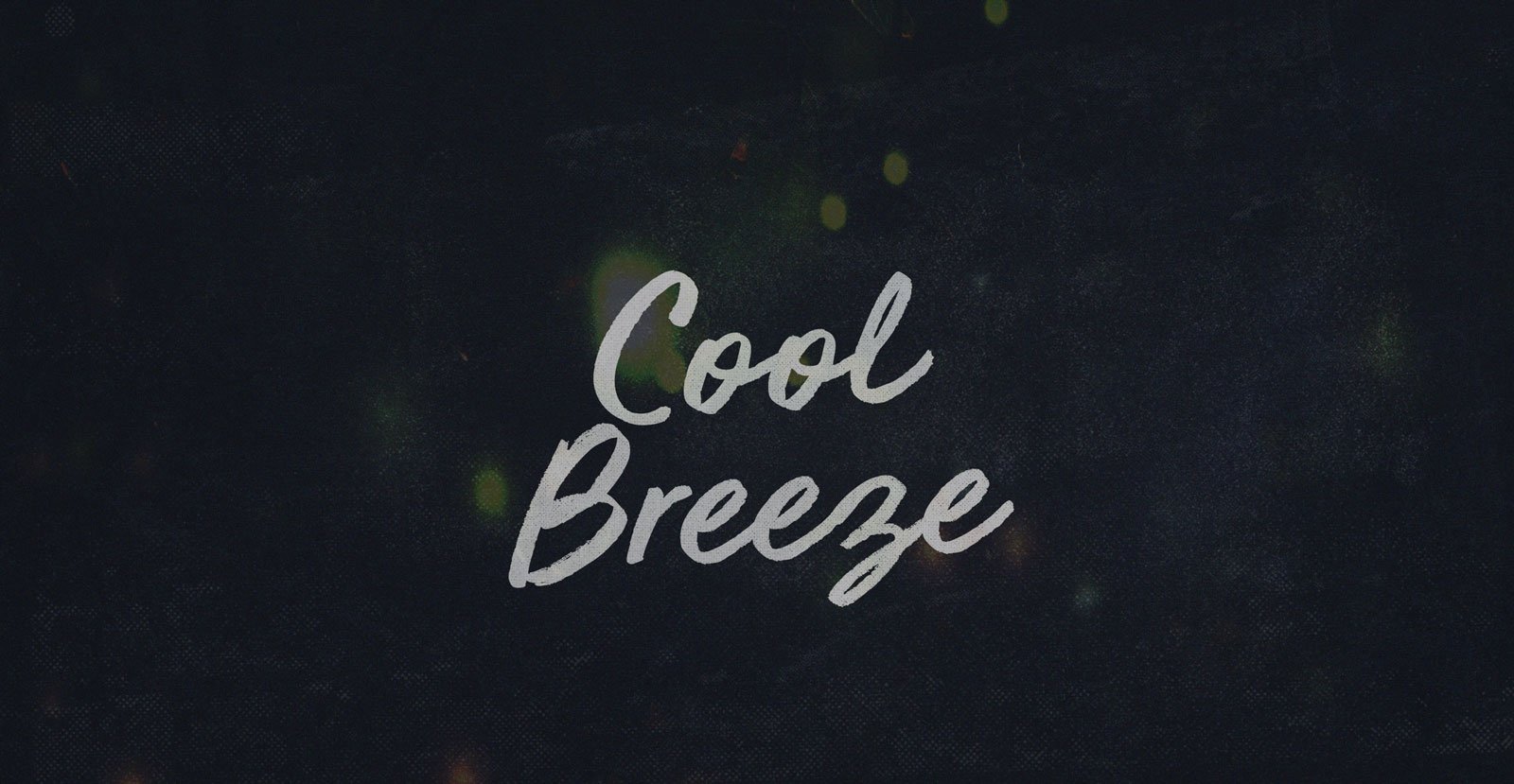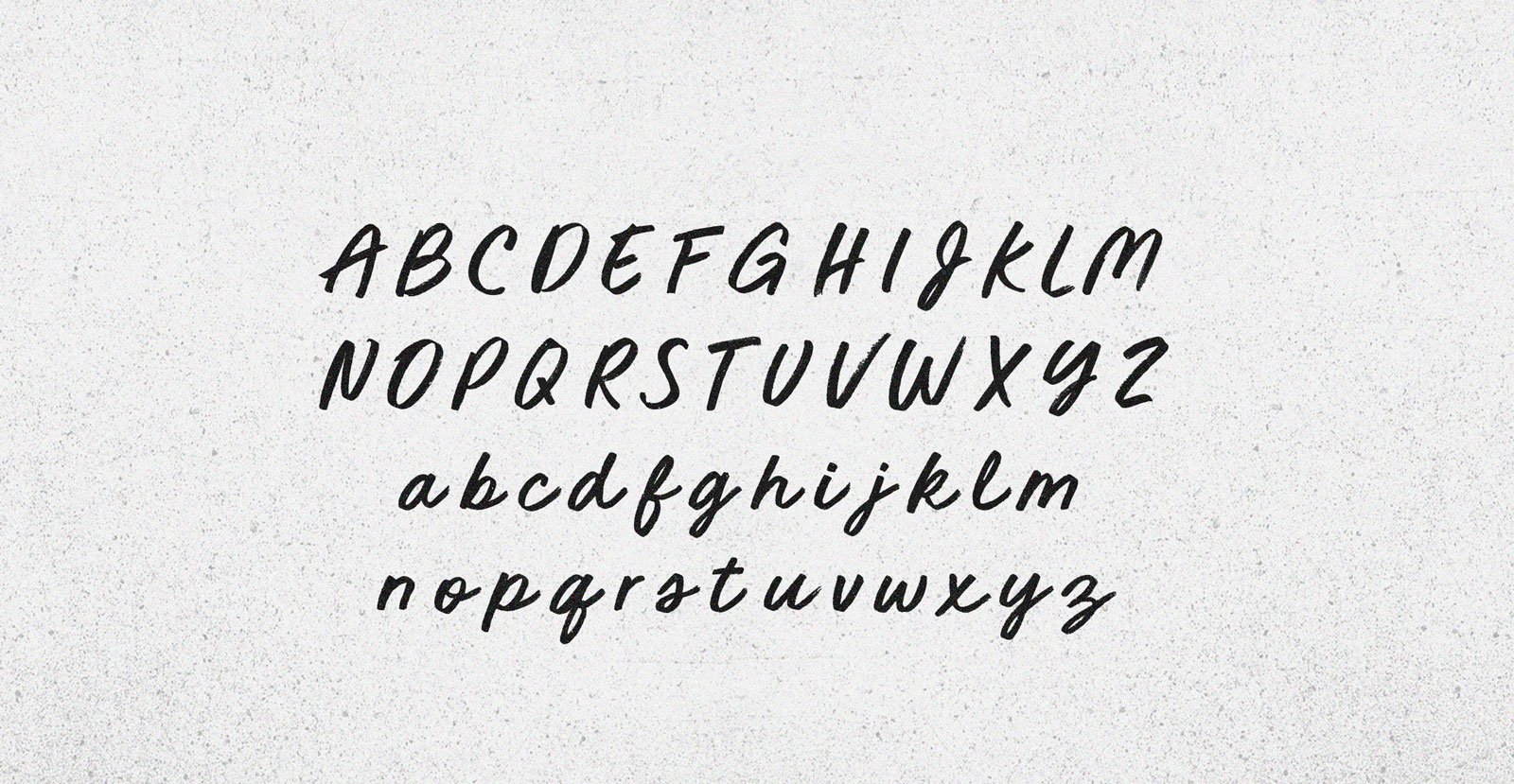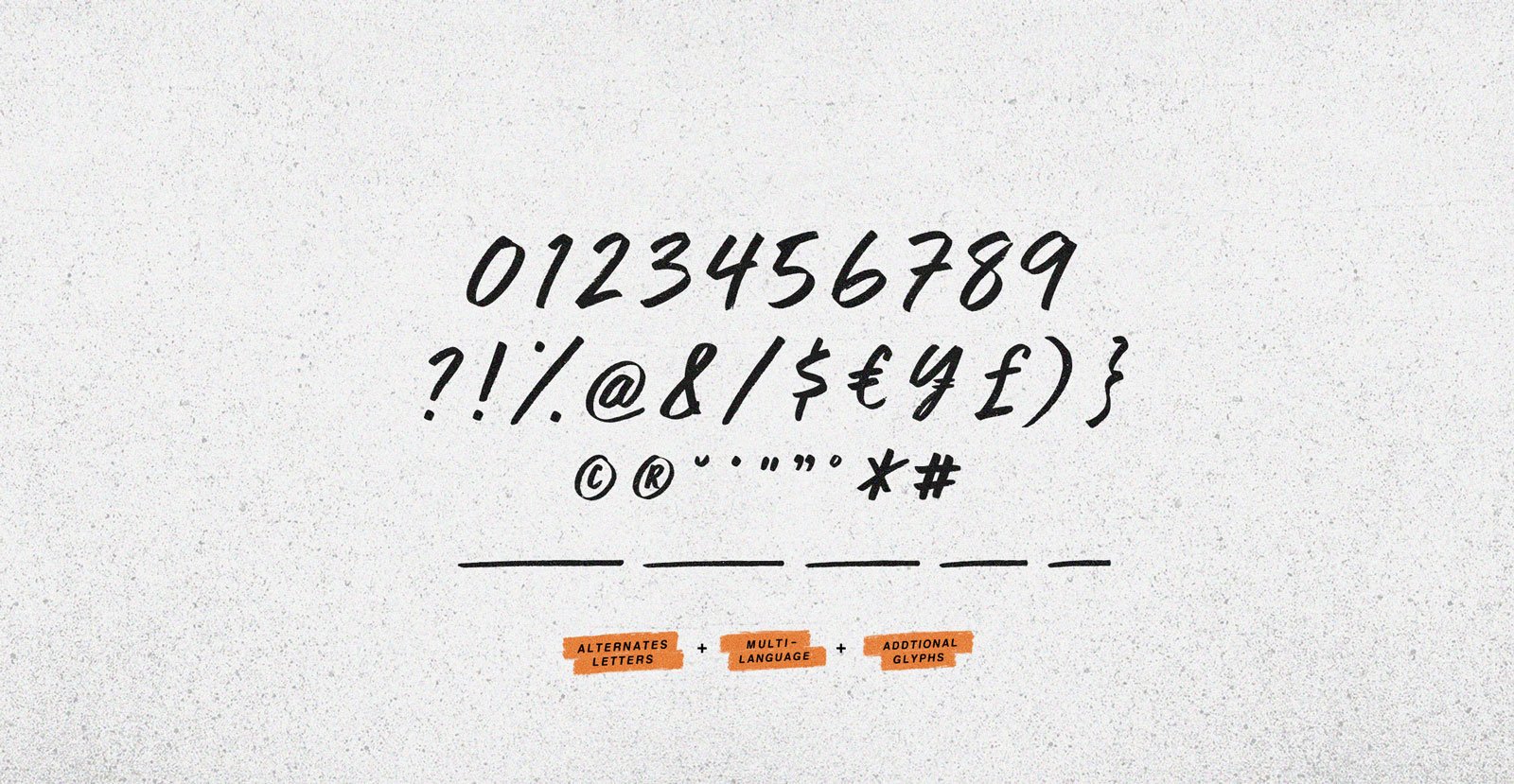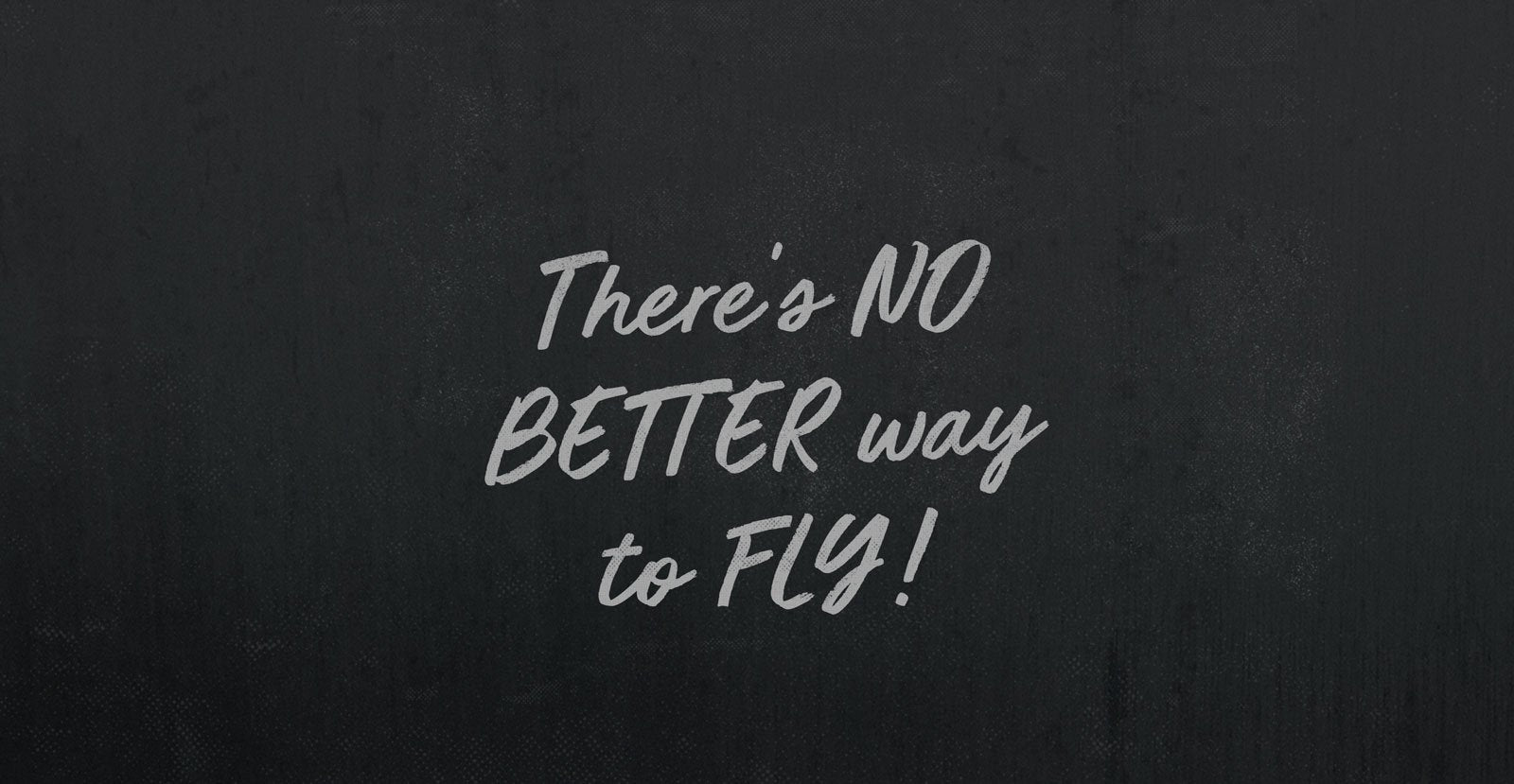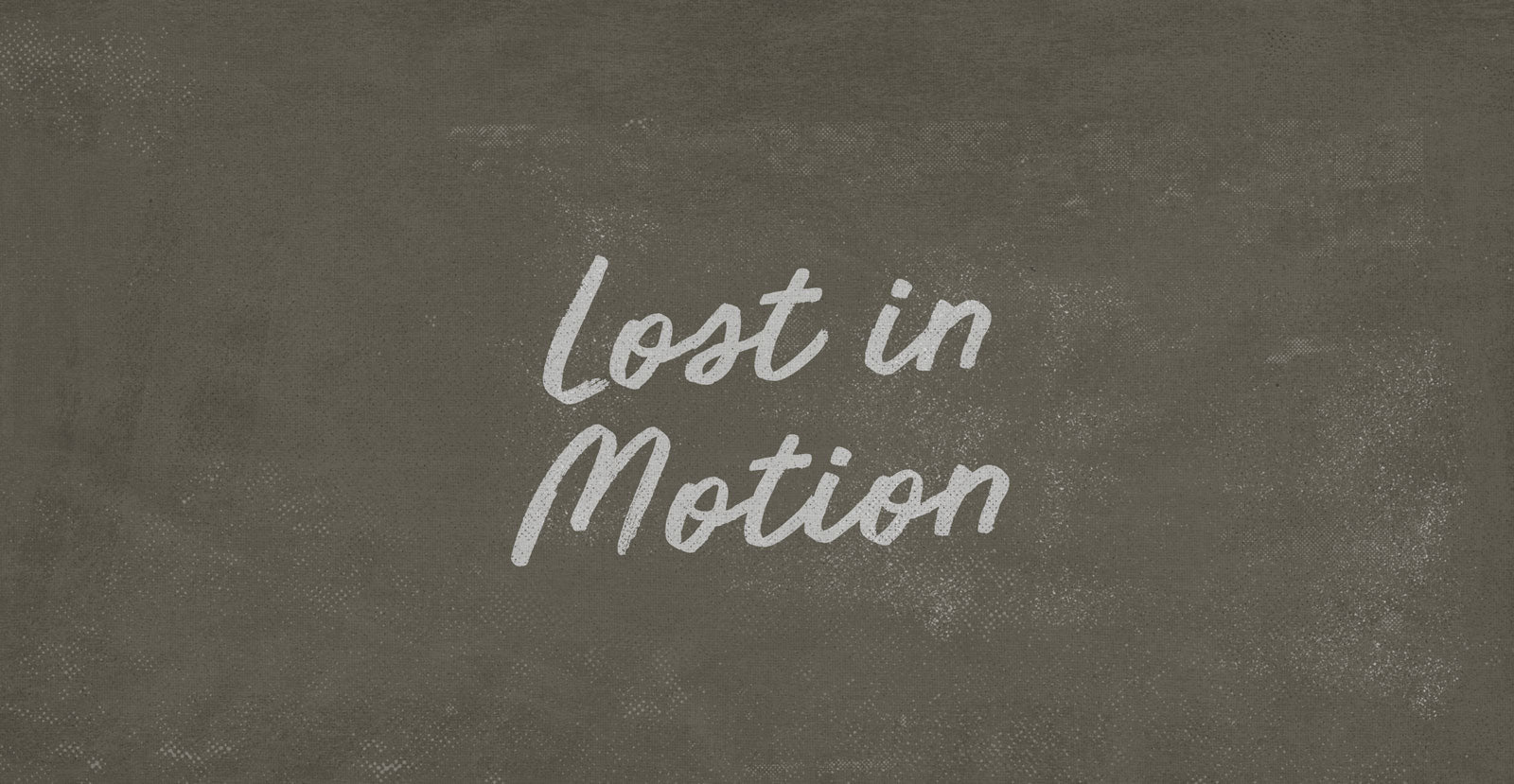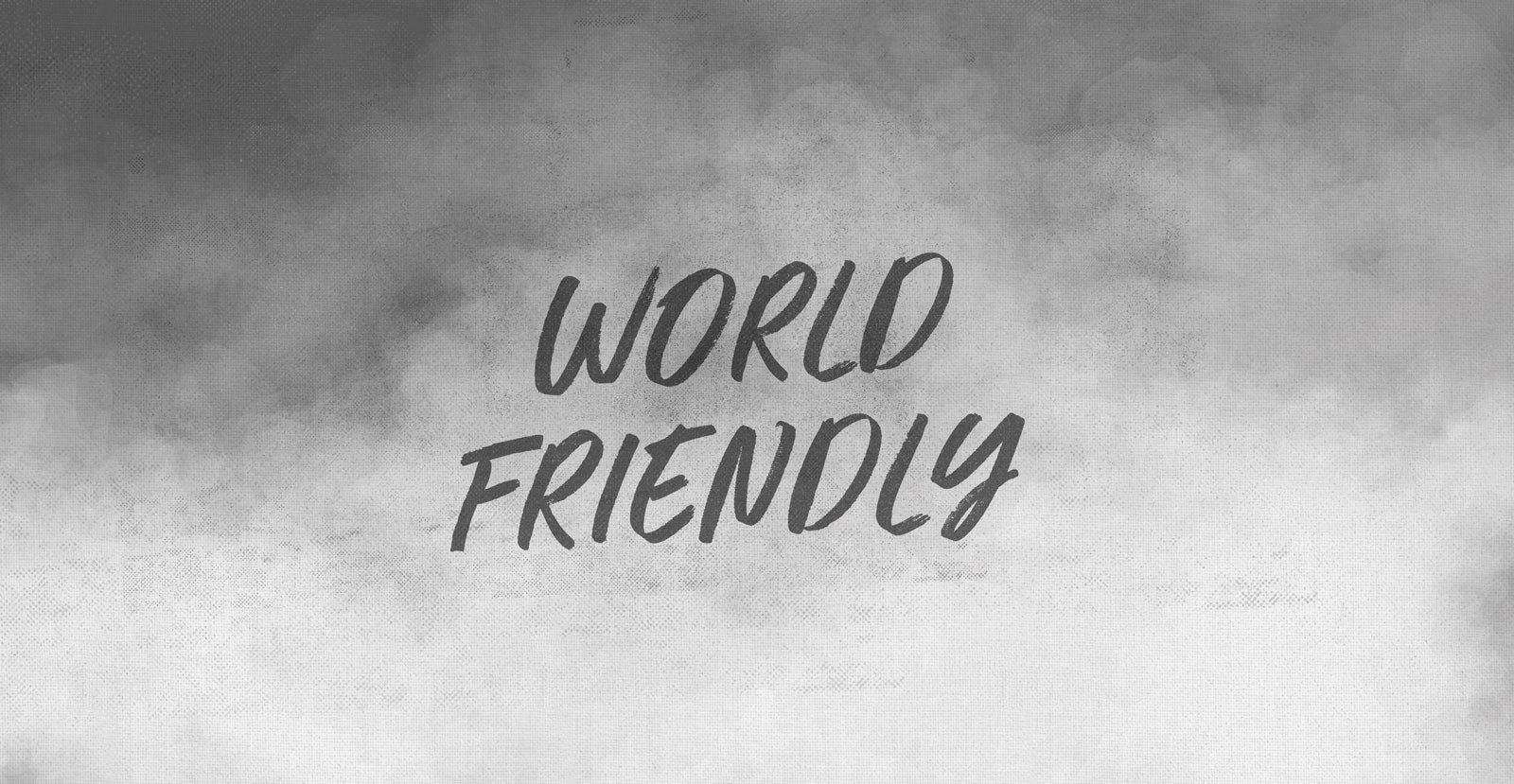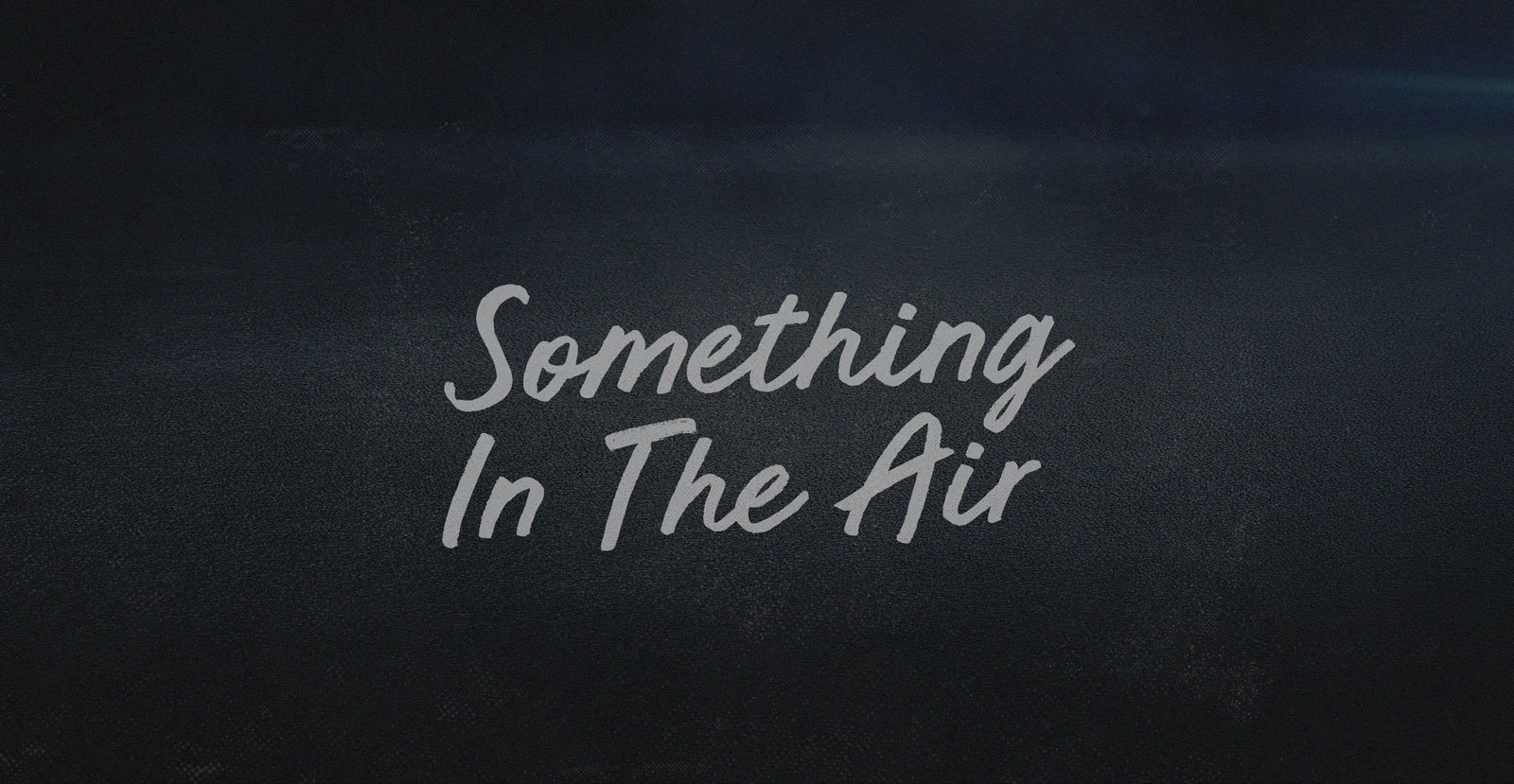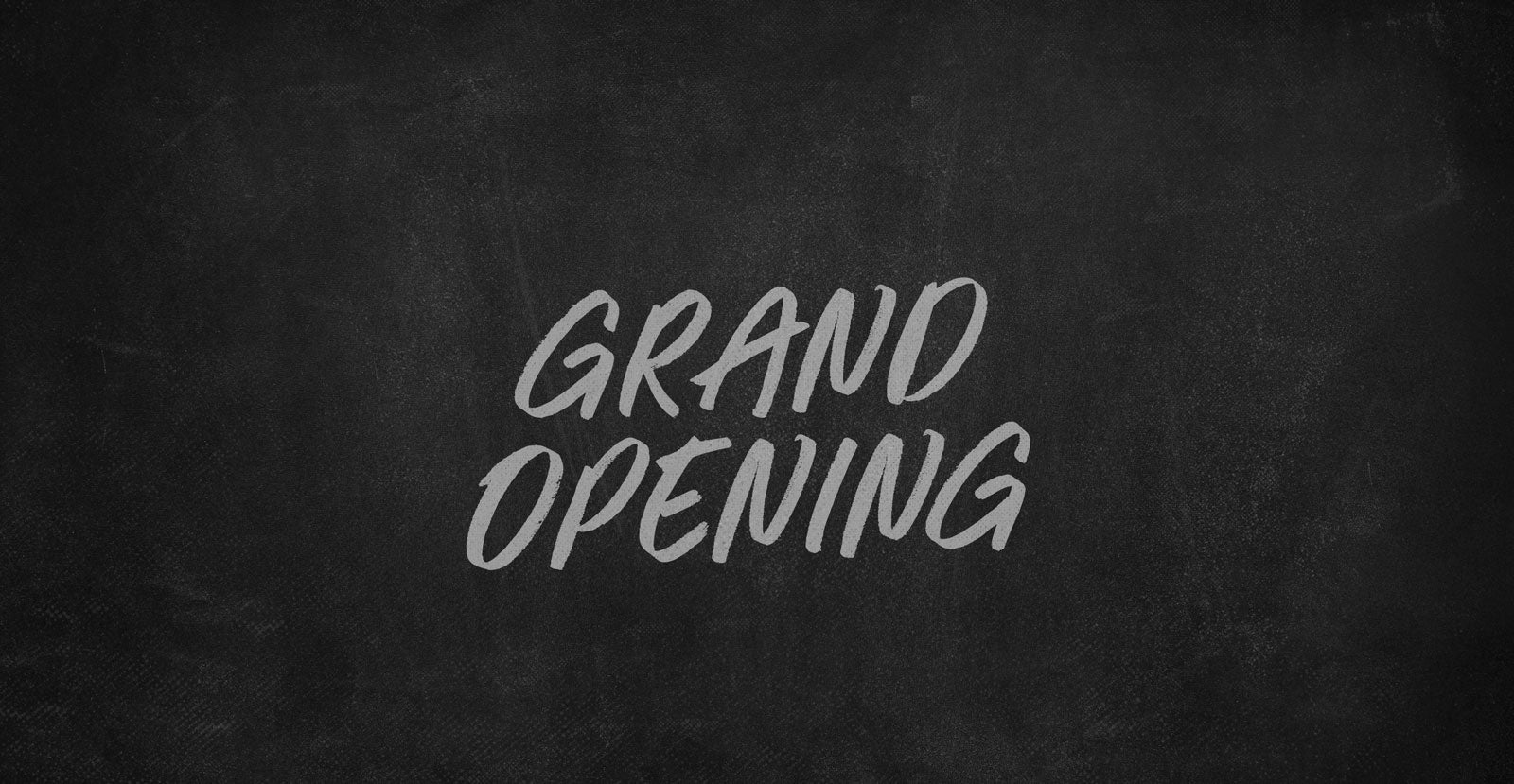
Cool Breeze
Don’t sleep unless the sleep is good, then sleep in and live the dream dreaming. Catch a Cool Breeze on a hot night—the odd opposite of hot breath down your neck—fresh air in a current, drafting and drifting, down from above, and on and up your nostrils, like, ahhh.